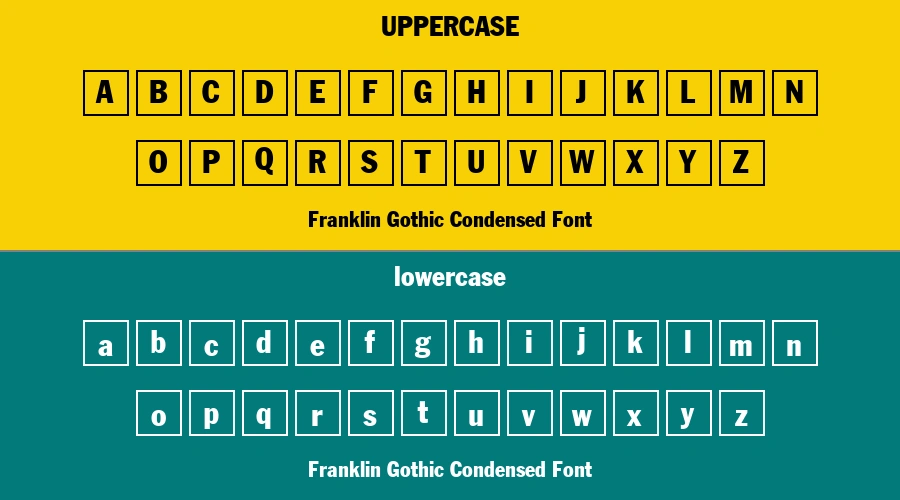
About Franklin Gothic Condensed Font
Franklin Gothic Condensed Font embodies typographic excellence through its masterful combination of decorative elements and personality. Created for medical texts, this typeface delivers exceptional expressiveness and cultural resonance across all applications. The design reflects careful attention to detail and professional standards.
Advanced capabilities include distinctive precise alignment and versatile arrow sets, giving designers creative control. When used in certification marks, Franklin Gothic Condensed Font exhibits remarkable kerning accuracy. The harmonious balance between x-height proportion and design heritage sets this typeface apart.